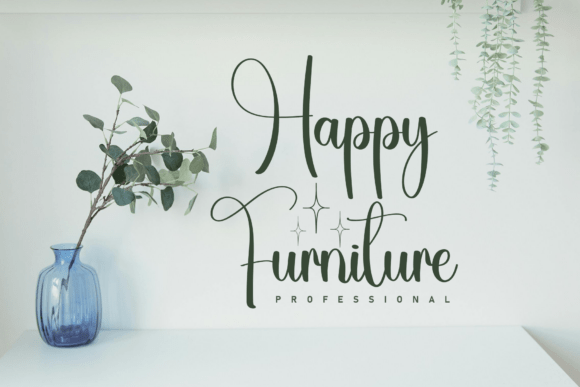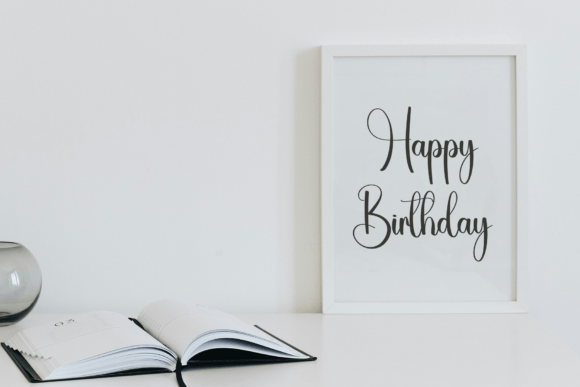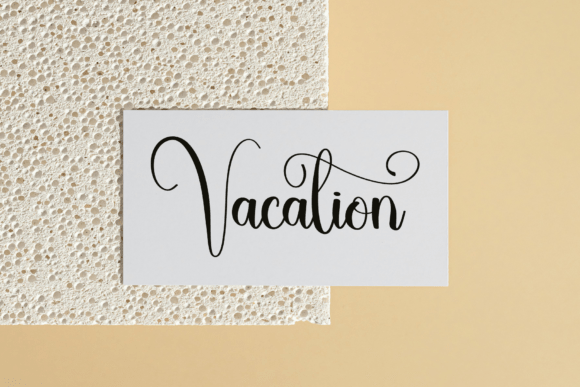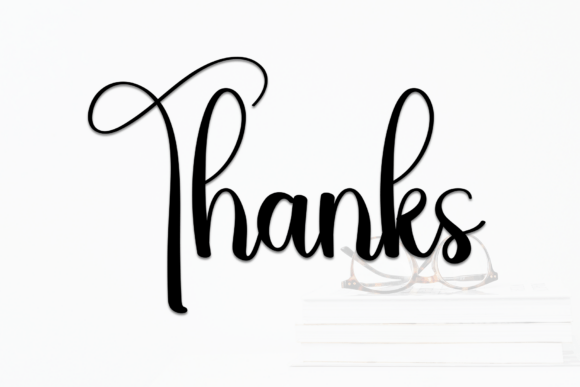
The Designer’s Delight: A Deep Dive into the Gather Font
I’ll never forget the time I was working on a luxury brand’s wedding invitation suite, and I just couldn’t find the right font to match their high-end aesthetic. The client wanted something elegant yet casual, sophisticated yet approachable. That’s when I stumbled upon the Gather font, and it instantly became my go-to. In this article, I’ll share my love for this beautiful handwritten font, its features, and how to make the most of it in your designs.
An Honest Review of Gather Font
What I Love About Gather Font
- ✨ Marker-like feel: Gather’s handwritten style gives it a relaxed, sporty vibe that’s perfect for a wide range of design projects.
- ✅ Luxurious yet casual: This font strikes the perfect balance between elegance and approachability, making it ideal for luxury brands, wedding designs, and high-end marketing materials.
- 💕 Versatile: Gather is suitable for various design applications, from branding and logos to greeting cards, lookbooks, and more.
While Gather is an amazing font, there are a few things to keep in mind:
- 🤔 Legibility at small sizes: As with many handwritten fonts, Gather may become less legible at very small sizes. It’s best used at larger sizes, such as headings or titles.
- ⚠️ Overuse: While Gather is a beautiful font, using it excessively can make your design look cluttered. Balance it with simpler fonts for body text or other design elements.
The Designer Inspiration Behind Gather Font
According to its designer, Gather was inspired by the casual, sporty feel of marker-drawn letters. The goal was to create a font that was both elegant and approachable, perfect for luxury brands and high-end designs. The designer’s passion for handwritten fonts and desire to create something unique and versatile led to the creation of Gather.
Q: What type of designs is Gather best suited for?
A: Gather is perfect for luxury brands, wedding designs, high-end marketing materials, and any design project that needs a touch of elegance and sophistication.
Q: Is Gather a difficult font to read?
A: Gather is a handwritten font, and like many handwritten fonts, it can be less legible at small sizes. However, it’s designed to be easy to read at larger sizes, making it perfect for headings, titles, and other design elements.
Q: Can I use Gather with other fonts?
A: Absolutely! Gather pairs well with a variety of fonts, from simple sans-serifs to elegant scripts. Experiment with different font combinations to find the perfect look for your design.